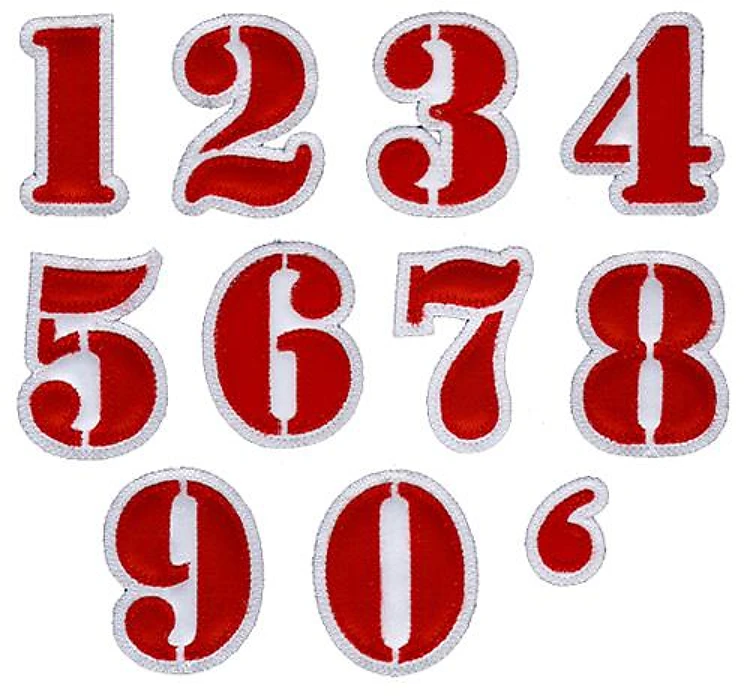
Stencil Applique Numbers Embrilliance Embroidery Font - Bold Decorative Stencil Letters - BX font by Starbird Inc and other embroidery fonts available at EmbroideryDesigns.com.
Bold stencil applique numbers in a decorative style, ideal for vibrant embroidery projects on jackets or bags. This machine embroidery font is available in BX font and Embrilliance formats.